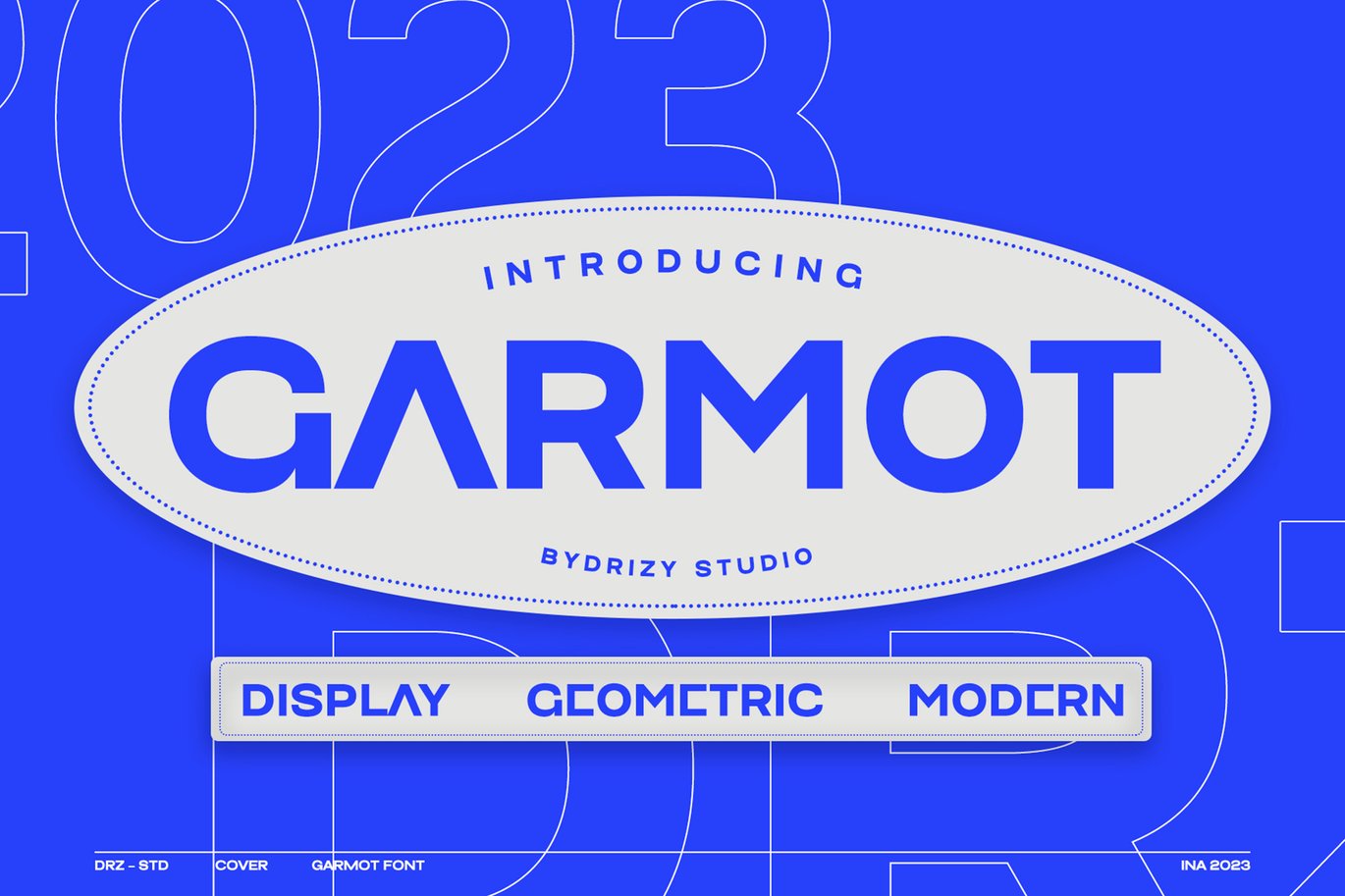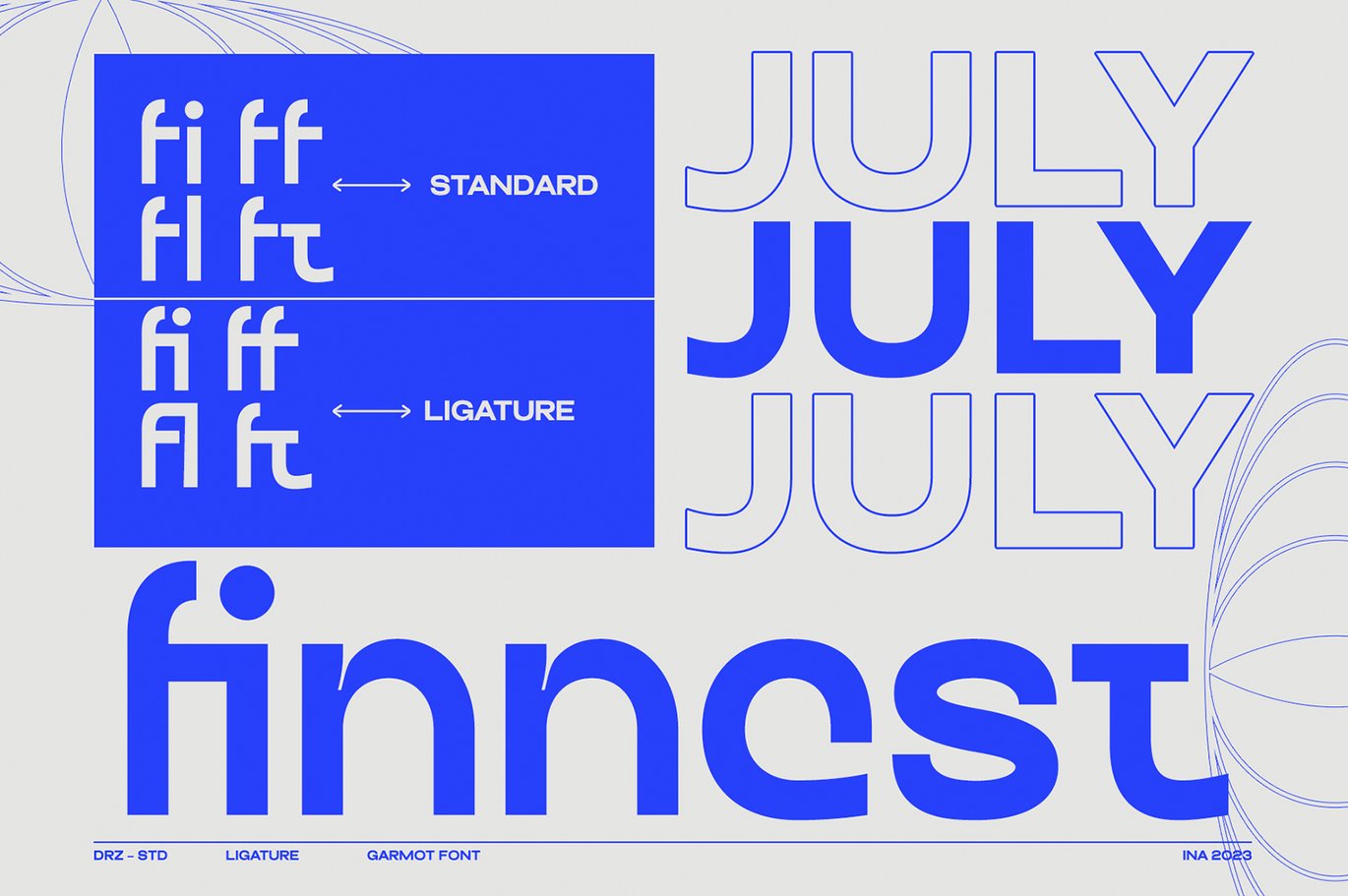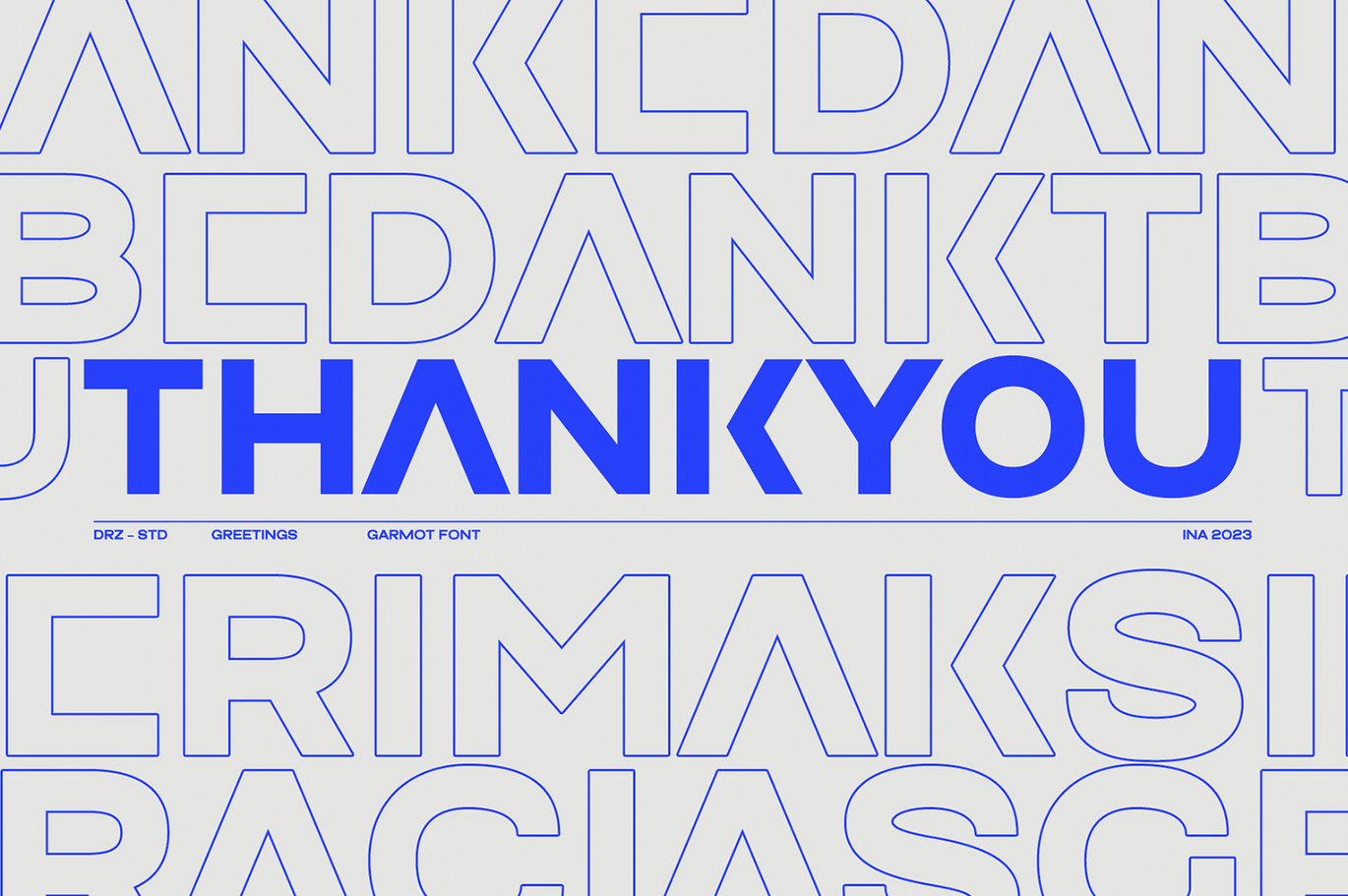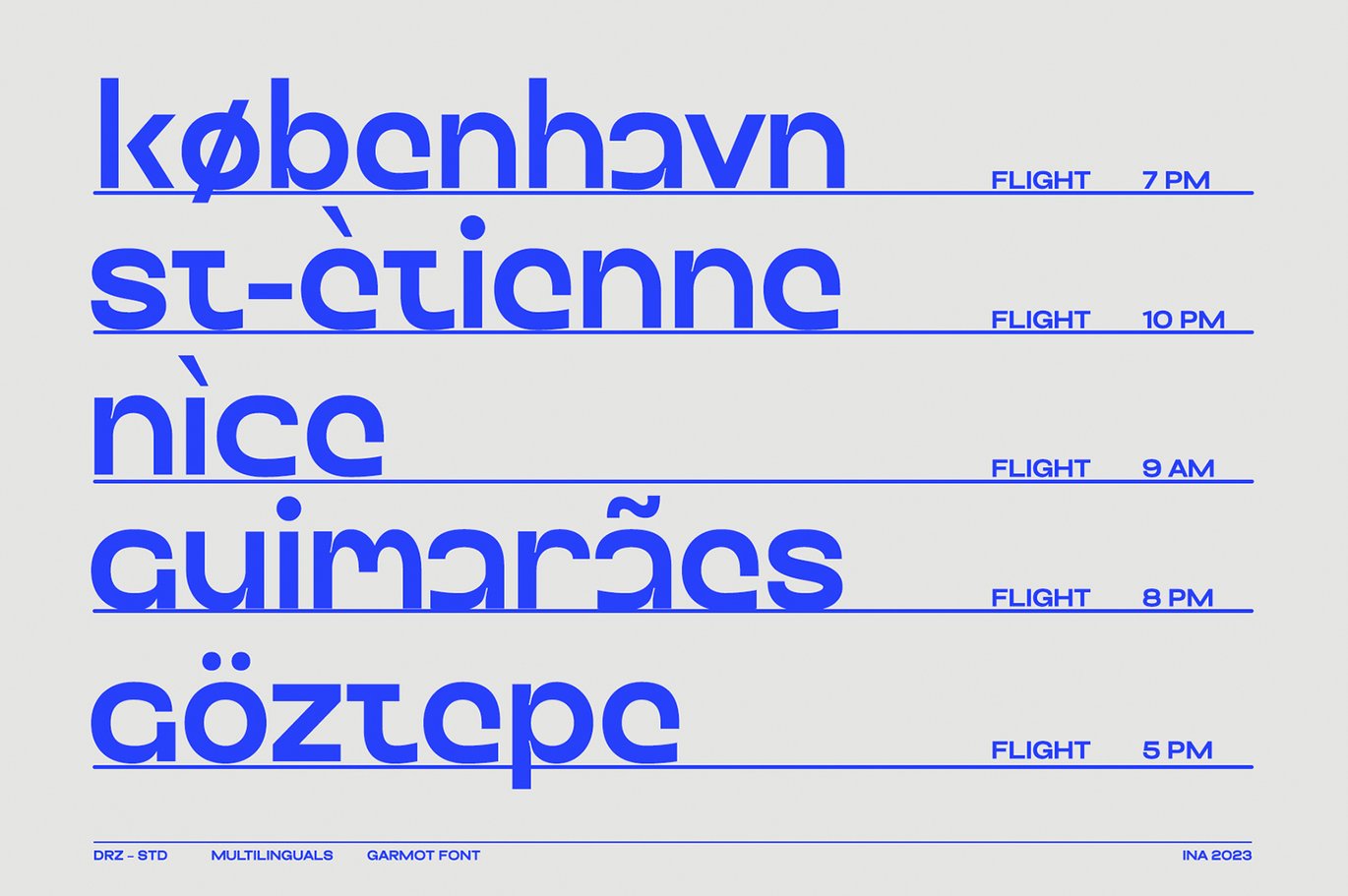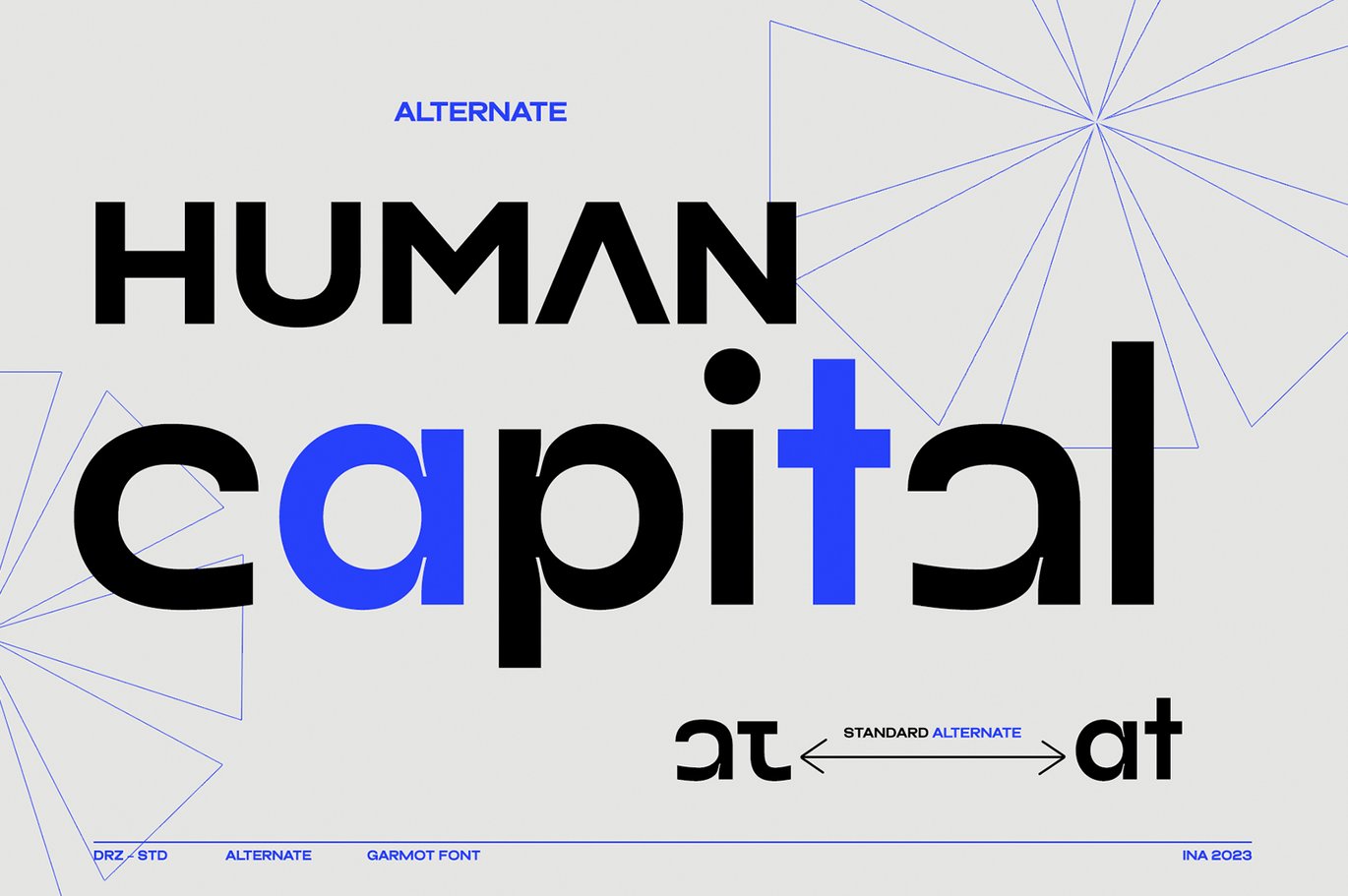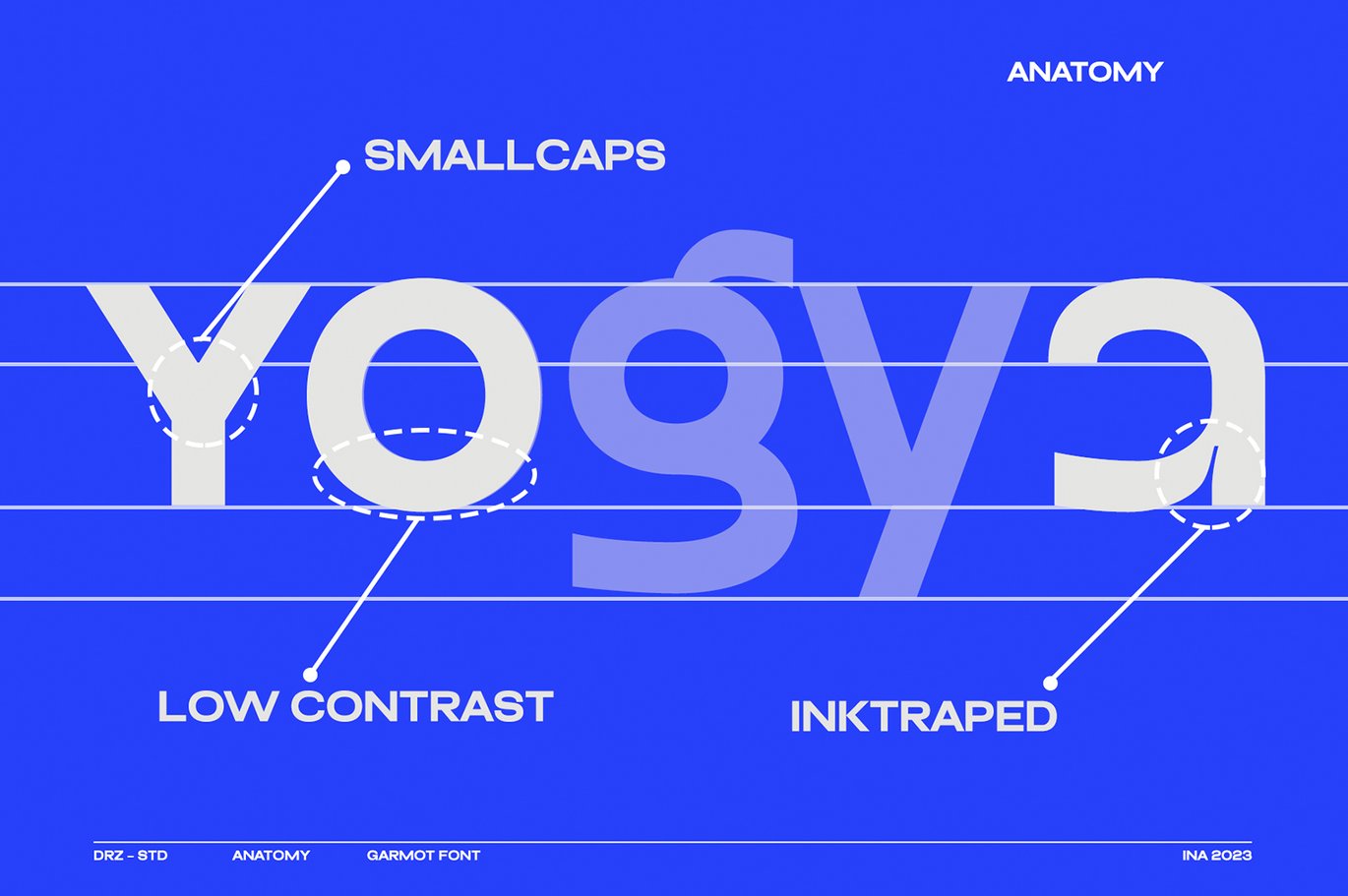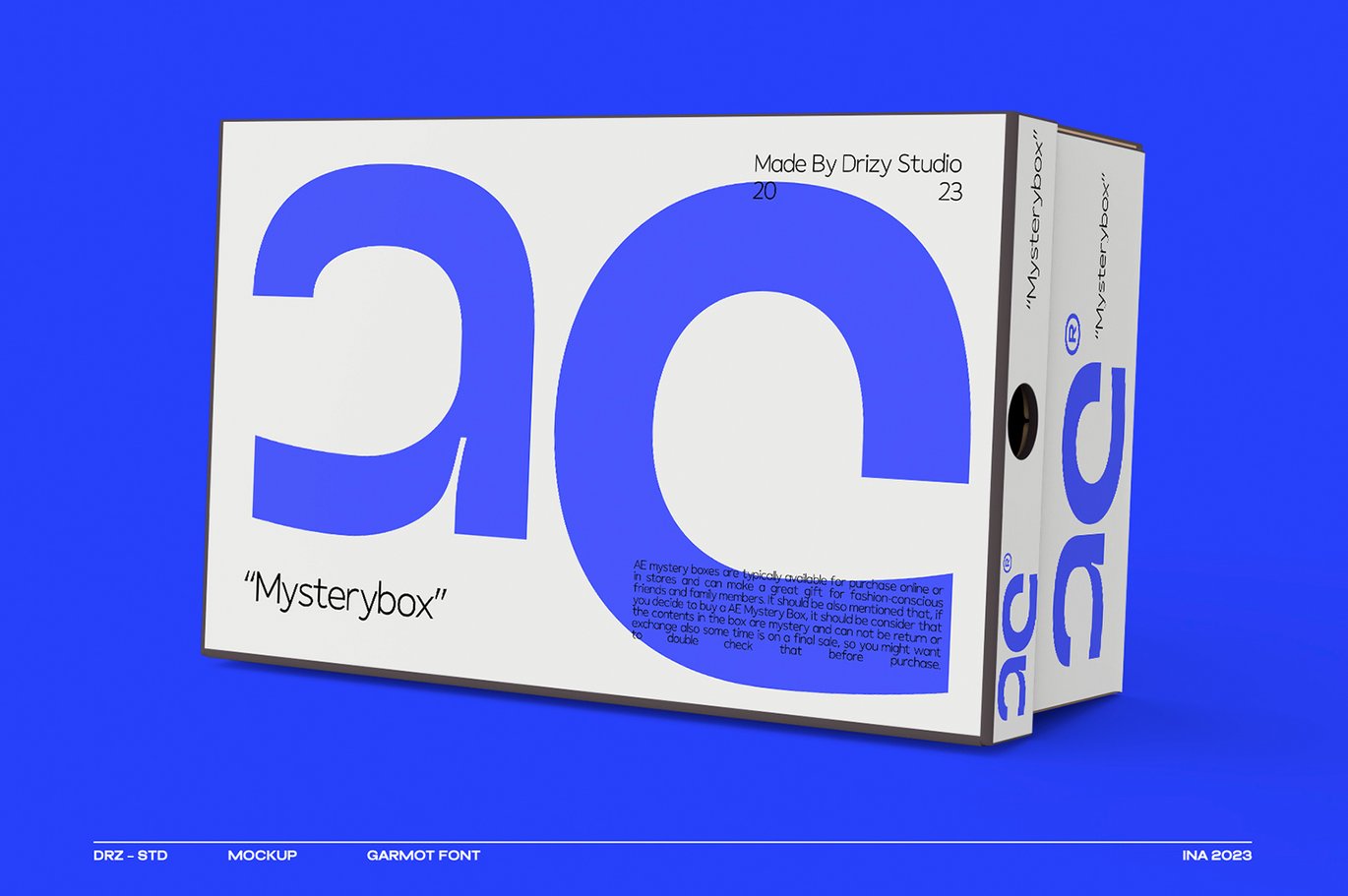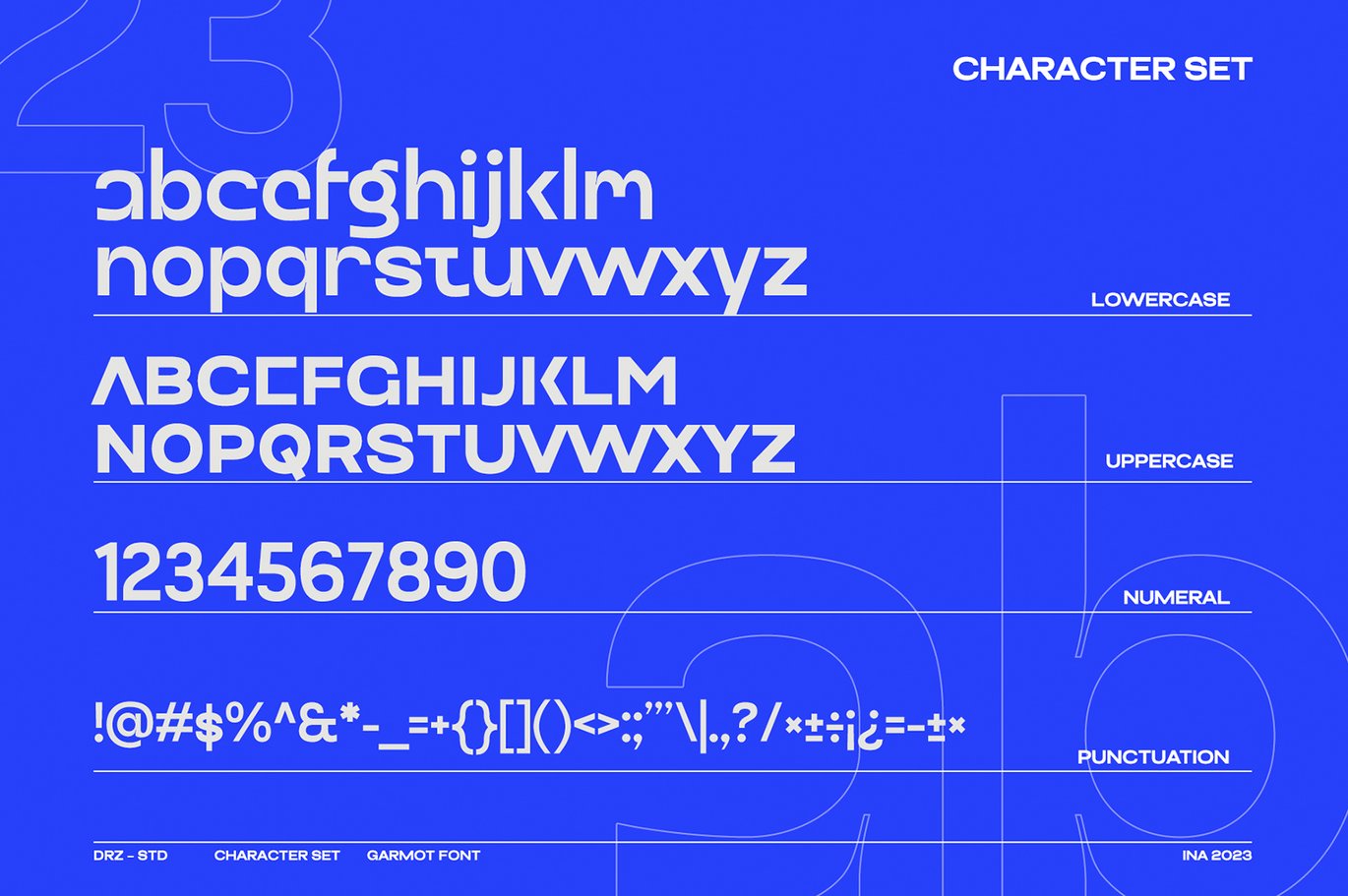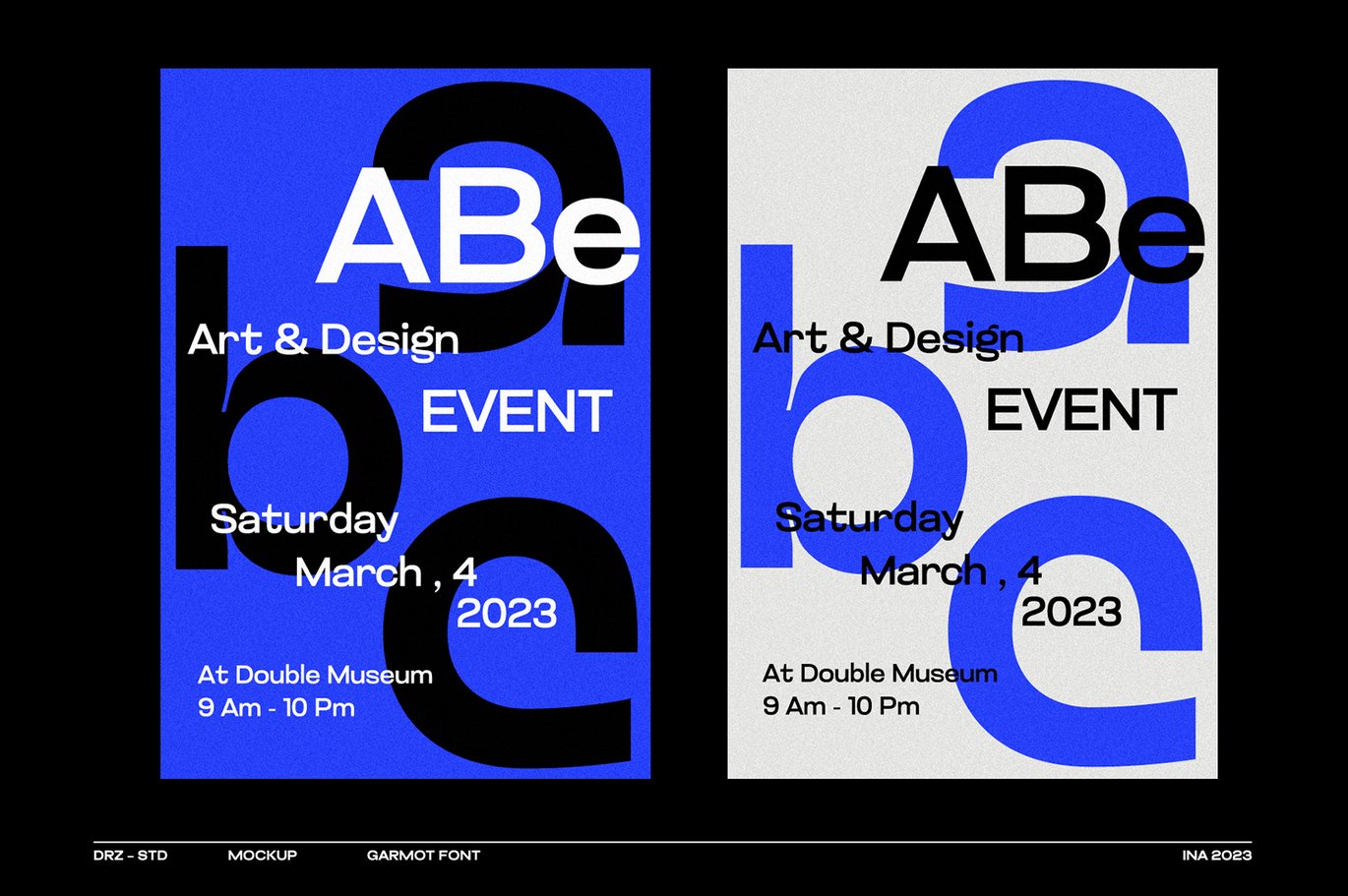
Garmot – Modern Geometric Font
Garmot is a Modern Geometric Font from Drizy Studio. Offering all the styles you need for your projects.
Garmot features:
Uppercase & Lowercase
Alternates
Ligatures